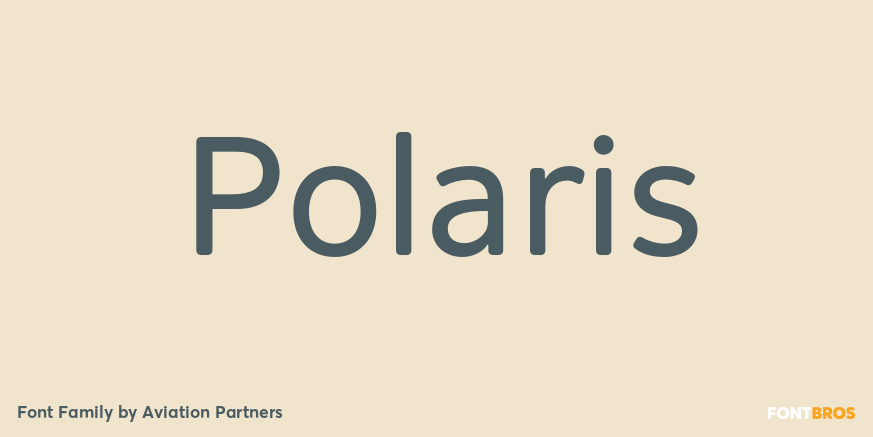
Polaris
About Polaris
Polaris is a rounded sans-serif family with four styles designed for easy reading. Perfect for print – brochures, posters, newsletters and stationery. For signage, Polaris comes with a variety of compatible arrows. Polaris is also great on-screen: use…